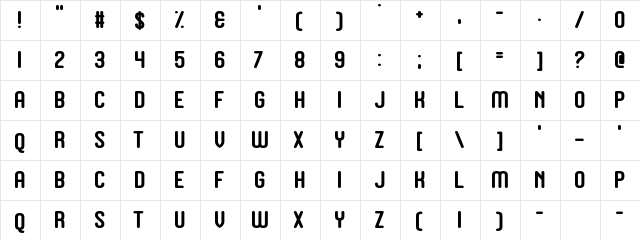
Juicebox Regular
Design Context for Juicebox Typeface
Juicebox is a composed and adaptable typeface that performs quietly and consistently across a wide range of design contexts.